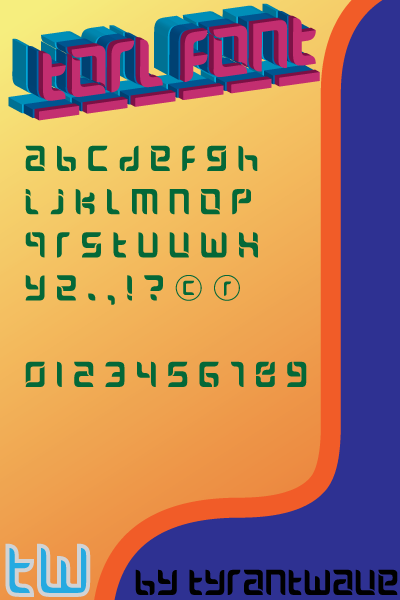
Font I created for my avatar, turned into a useable font set.Thoughts / Crit welcomed
Very cool futuristic font dude , I'm sure I'll use it sooner or later
I created the individual characters in Illustrator (For vector paths), then I used High-Logic Font Creator to make the fonts.